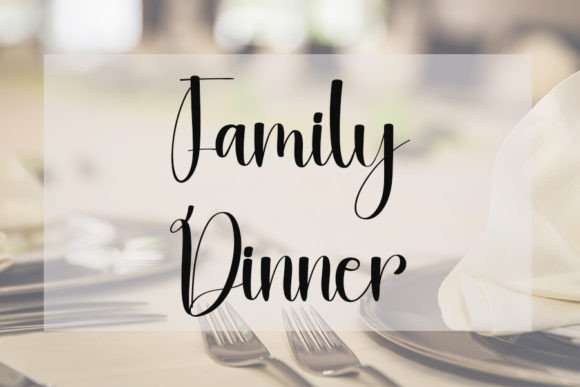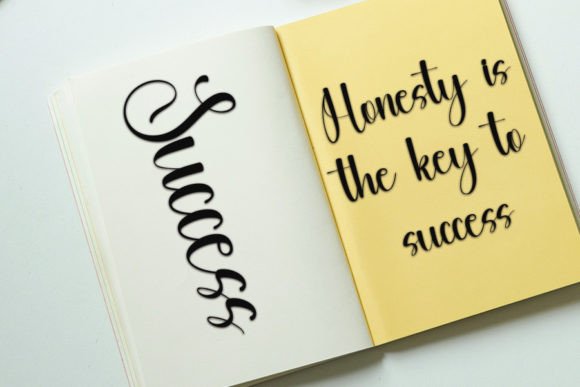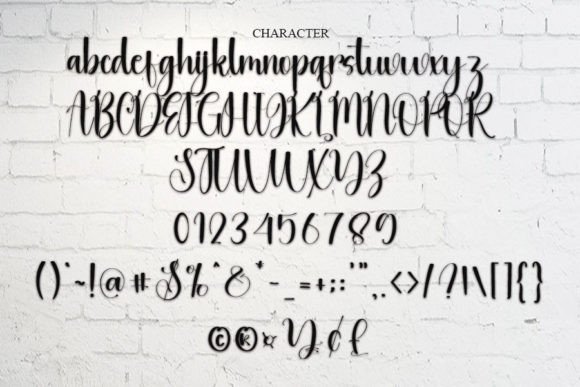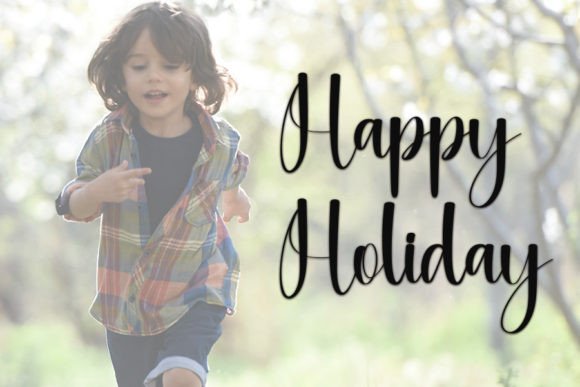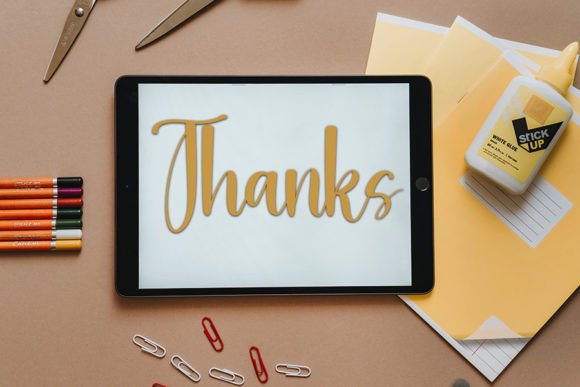
Dinner Font: The Perfect Addition to Your Design Arsenal
Are you a designer or crafter looking for a font that can add a touch of romance and elegance to your projects? Look no further than the Dinner Font. This enchanting handwritten font is versatile, charming, and sure to captivate your audience. In this article, we’ll dive into the world of Dinner Font, exploring its features, applications, and benefits.
What is Dinner Font?
Dinner Font is a beautiful, handwritten typeface designed to evoke a sense of warmth and sophistication. Its flowing lines, delicate curves, and whimsical flair make it perfect for a wide range of design projects. Whether you’re creating greeting cards, headlines, or social media graphics, Dinner Font is sure to add a romantic feel to your work.
Key Features of Dinner Font
- Handwritten style: Dinner Font boasts a charming, handwritten aesthetic that’s perfect for designs that require a personal touch.
- Versatility: This font is incredibly versatile, making it suitable for various applications, from formal to informal designs.
- Elegant curves: The font’s flowing lines and delicate curves create a sense of sophistication and refinement.
- Wide range of applications: Use Dinner Font for greeting cards, headlines, social media graphics, and more.
Applications of Dinner Font
Dinner Font’s versatility makes it an excellent choice for various design projects. Here are some ideas to get you started:
- Greeting cards: Add a touch of elegance to your greeting cards, making them perfect for special occasions like weddings, anniversaries, and birthdays.
- Headlines: Use Dinner Font to create captivating headlines for your blog posts, articles, or social media graphics.
- Social media graphics: Elevate your social media presence with Dinner Font, making your graphics stand out and engaging your audience.
- Wedding designs: This font is perfect for wedding-related designs, such as invitations, programs, and decorations.
- Branding: Use Dinner Font to create a unique and memorable brand identity that exudes elegance and sophistication.
Benefits of Using Dinner Font
So, why choose Dinner Font for your design projects? Here are some benefits you can expect:
- Unique and eye-catching: Dinner Font’s distinctive style ensures your designs will stand out from the crowd.
- Emotional connection: The font’s romantic and elegant feel helps create an emotional connection with your audience.
- Time-saving: With Dinner Font, you can create stunning designs quickly and efficiently, saving you time and effort.
- Scalability: This font is highly scalable, making it perfect for various design applications, from small icons to large billboards.
Tips for Using Dinner Font
To get the most out of Dinner Font, follow these tips:
- Pair with complementary fonts: Combine Dinner Font with other fonts to create a unique and harmonious design.
- Experiment with colors: Try different color schemes to find the perfect match for your design and audience.
- Pay attention to spacing: Ensure adequate spacing between letters and lines to maintain the font’s elegance and readability.
Dinner Font is a versatile and enchanting handwritten font that’s perfect for designers and crafters looking to add a touch of romance and elegance to their projects. With its wide range of applications, key features, and benefits, this font is sure to become a staple in your design arsenal. So, go ahead and get creative with Dinner Font – your designs will thank you!